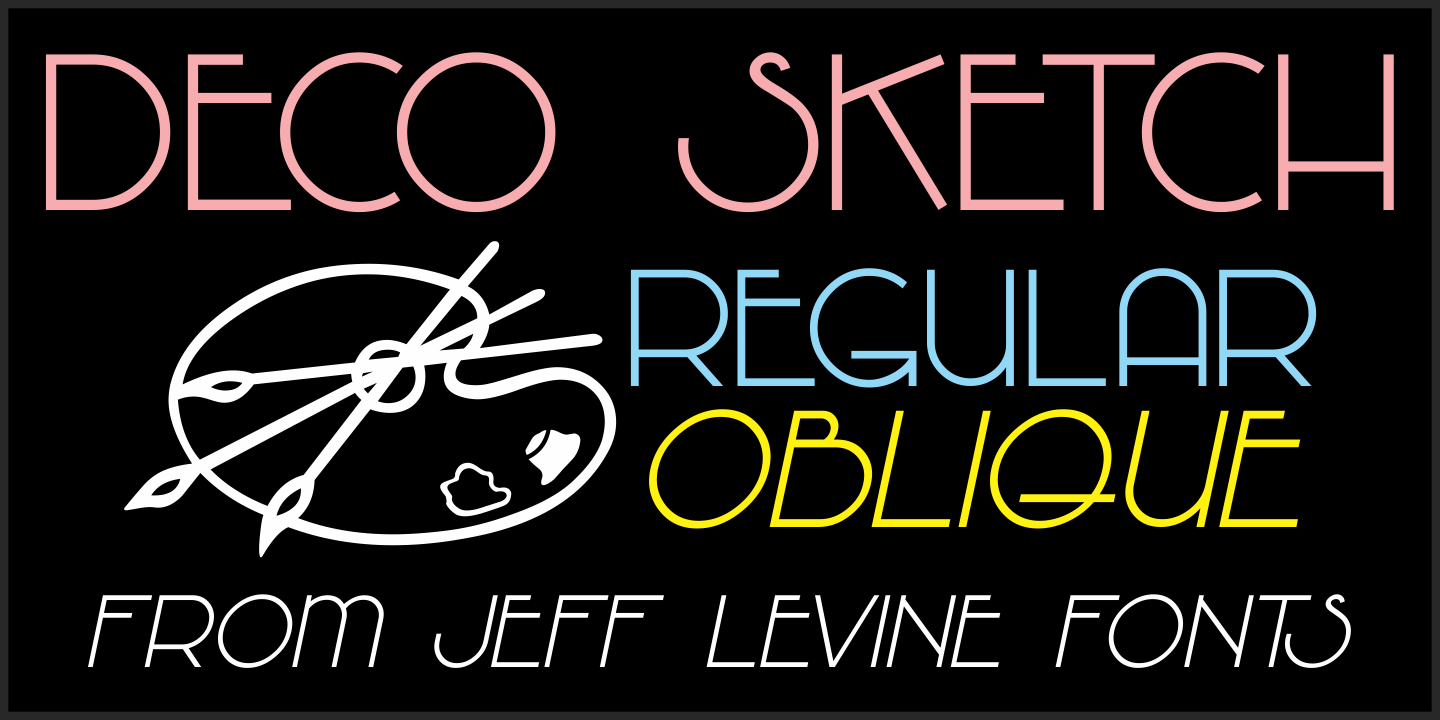
The Deco Sketch JNL Font is perfect for Art Deco-inspired designs, luxury hotel branding, vintage jazz posters, 1920s themed events, elegant restaurant menus, premium product packaging, sophisticated signage, classic theater marquees, upscale cocktail bar materials, and refined architectural graphics.
What makes the Deco Sketch JNL Font exciting is its stunning combination of Art Deco elegance and hand-sketched authenticity that captures the glamorous spirit of the Jazz Age with artistic flair. This sophisticated typeface features geometric patterns, angular lines, and decorative elements characteristic of the 1920s Art Deco movement, while maintaining the organic charm of hand-drawn sketches. Each character embodies the luxury and sophistication of the era when craftsmanship and artistic excellence defined premium design.
The Deco Sketch JNL Font family includes regular, bold, outline, and shadow versions, along with decorative borders, geometric ornaments, and Art Deco-inspired symbols that enhance its luxurious appeal across various high-end design applications.
Whether you're designing luxury brand identities or creating period-accurate vintage materials, Deco Sketch JNL Font Free Download delivers unmatched elegance and artistic sophistication. Its expertly crafted letterforms ensure perfect readability while maintaining that essential Art Deco glamour that speaks to discerning audiences. The font's special features include contextual alternates, decorative ligatures, and geometric variations that automatically enhance luxury typography standards. Premium brand designers and vintage specialists consistently choose this font for projects requiring authentic Art Deco aesthetics and upscale appeal. The Deco Sketch JNL Font transforms ordinary text into luxurious artistic statements, making it an indispensable treasure in any designer's premium typography collection.